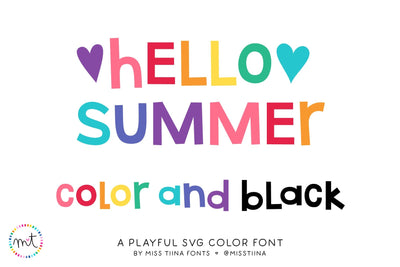
Hello Summer SVG Color Font
Introducing Hello Summer, an effervescent and whimsical rainbow font that embodies joy and color. Every single letter of this charming font comes in a vibrant palette of eight different shades, masterfully crafted to create the perfect rainbow text. The unique feature of the alternate colored characters can be utilized effortlessly through the Glyphs panel in Photoshop or Illustrator, enhancing your creative exploration with unlimited color and style possibilities. Grab the essence of summer and splatter it across your designs with the colorful enigma that is the Hello Summer font.